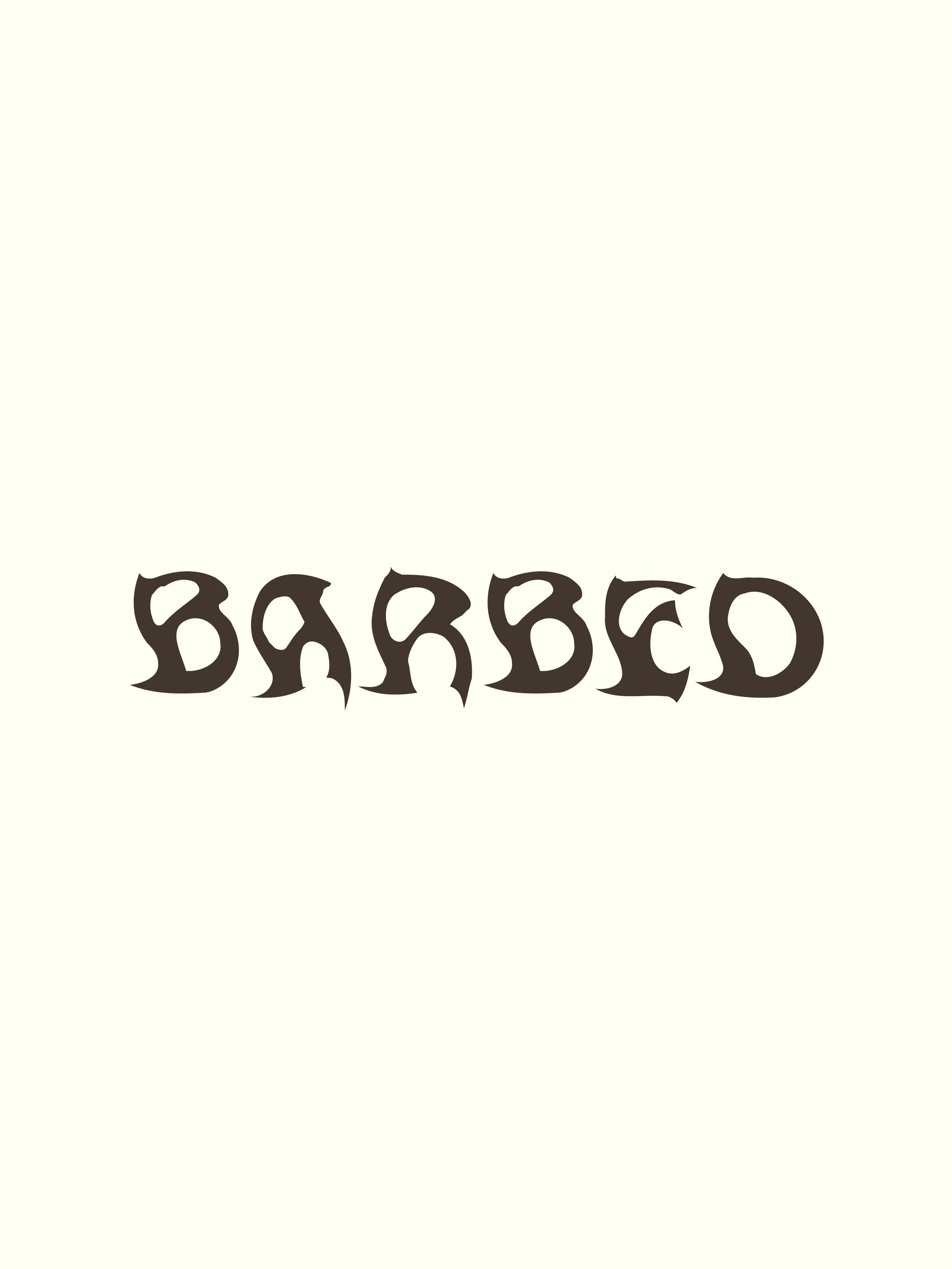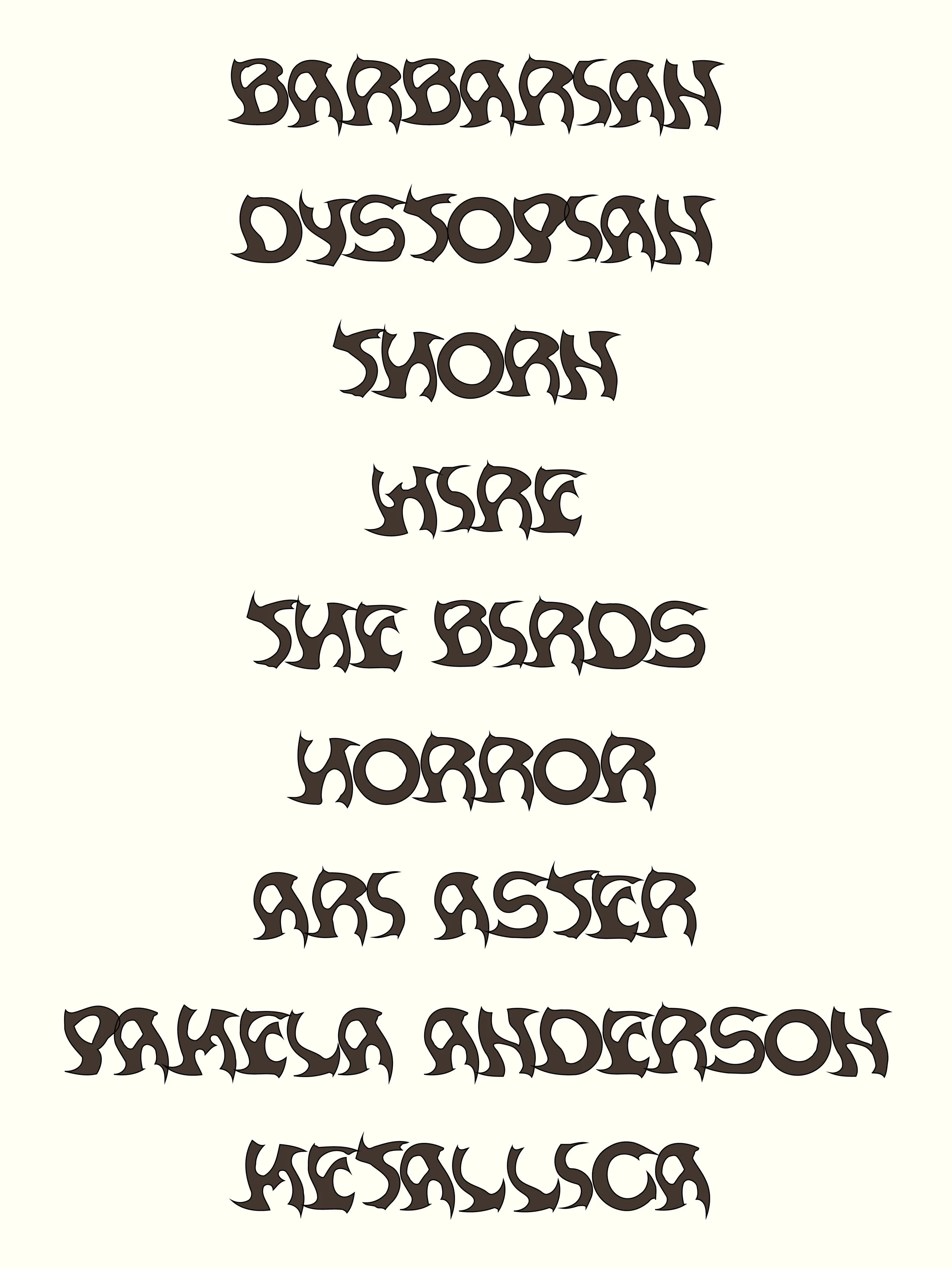
Barbed is an all-caps, hand-drawn display font with jagged, uneasy edges. It leans into the raw, imperfect, and off-kilter, making it perfect for projects that need a bold, edgy, and unconventional feel.
With sharp, irregular lines and an intentionally human touch, Barbed doesn’t aim for precision — it’s meant to feel alive, hand-cut, and slightly dangerous. Each letter carries the tension of something etched, scratched, or carved, ideal for designs that reject polish and embrace grit.
A–Z uppercase letters (NO lowercase, numbers, or punctuation)
Designed as a display/logo-focused font — intentionally all caps
Horror-inspired posters, zines & film titles
Punk, metal, and alternative music merch & gig flyers
Logos and wordmarks with a raw, handmade edge
Editorial layouts that need an unsettling, graphic punch
DIY crafts, packaging, and signage with a gritty feel
Barbed isn’t neat — it’s jagged and human. Use it to inject edge into your projects, from eerie film posters and rebellious album covers to underground brand marks that thrive on imperfection.